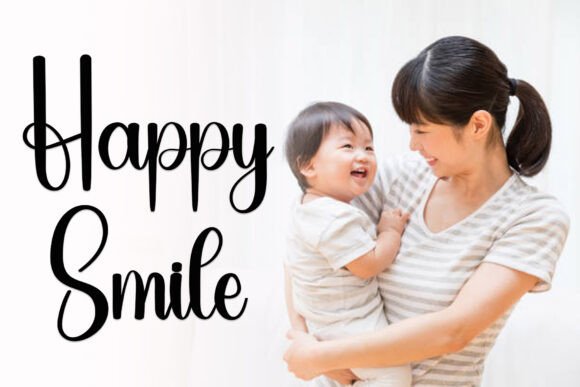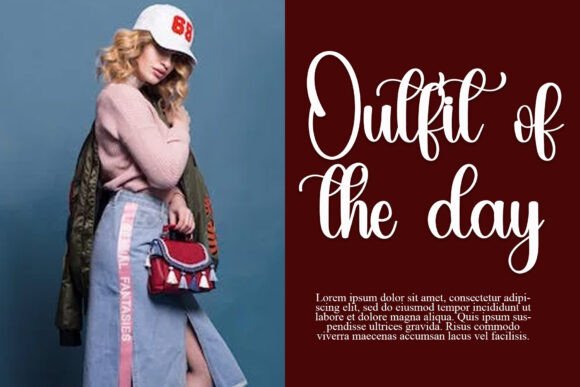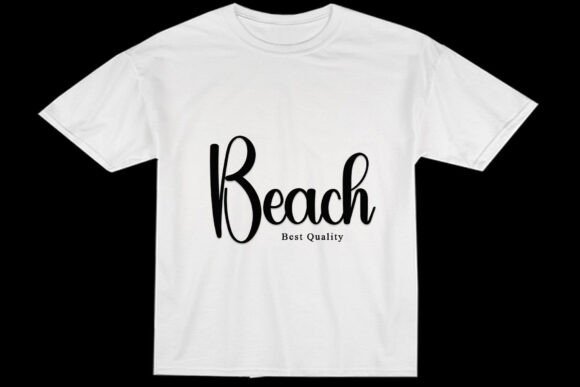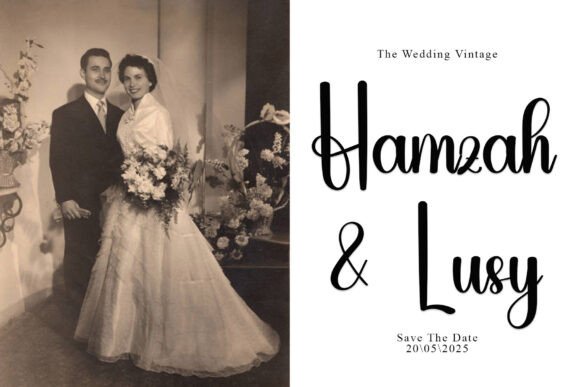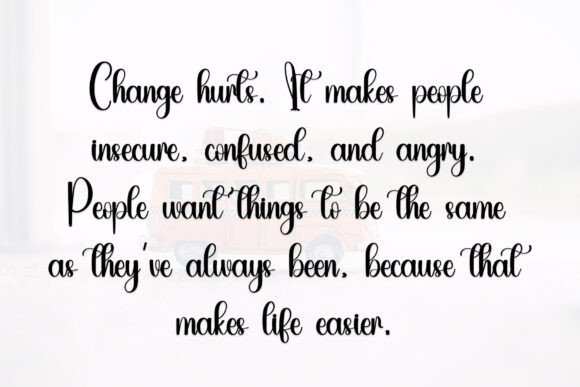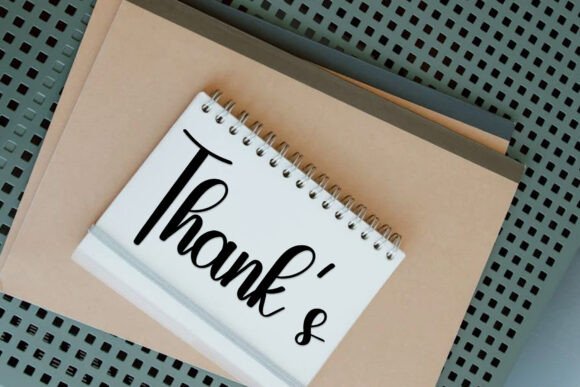
Baby Chubby Font: The Perfect Addition to Your Design Arsenal
Are you a designer or crafter looking for a unique and elegant font to elevate your projects? Look no further than the Baby Chubby font! This stunning handwritten font is characterized by its flowing lines and timeless style, making it perfect for a wide range of applications. In this article, we’ll take a closer look at the Baby Chubby font, its features, and how you can use it to create spectacular designs.
What is Baby Chubby Font?
Baby Chubby is a beautiful, flowing handwritten font that exudes elegance and sophistication. Its incredibly distinct and timeless style makes it perfect for designers and crafters who want to add a touch of class to their projects. Whether you’re working on a logo, branding materials, or personal crafts, Baby Chubby is sure to impress.
Key Features of Baby Chubby Font
- Handwritten style: Baby Chubby is a handwritten font, which gives it a personal and unique touch.
- Elegant lines: The font features flowing lines that add to its elegance and sophistication.
- Timeless style: Baby Chubby’s style is timeless, making it perfect for projects that require a classic look.
- Distinctive: The font’s distinctive style sets it apart from other fonts, making it perfect for designers who want to create unique designs.
Uses of Baby Chubby Font
Baby Chubby is a versatile font that can be used in a wide range of projects, including:
- Logo design: The font’s elegant lines and timeless style make it perfect for logo design.
- Branding materials: Use Baby Chubby to create business cards, brochures, and other branding materials that exude elegance and sophistication.
- Personal crafts: The font is perfect for crafters who want to add a touch of elegance to their projects, such as handmade cards, scrapbooking, and DIY projects.
- Digital design: Baby Chubby can be used in digital designs, such as website headers, social media graphics, and more.
Tips for Using Baby Chubby Font
Here are some tips for using Baby Chubby font in your designs:
- Pair it with a simple font: Pair Baby Chubby with a simple font to create a beautiful contrast.
- Use it sparingly: Use Baby Chubby sparingly to avoid overwhelming your design.
- Pay attention to spacing: Pay attention to spacing to ensure that your design looks elegant and sophisticated.
In conclusion, Baby Chubby font is a beautiful and elegant font that is perfect for designers and crafters who want to add a touch of class to their projects. Its flowing lines, timeless style, and distinctive features make it a versatile font that can be used in a wide range of applications. With its ease of use and flexibility, Baby Chubby is sure to become a favorite in your design arsenal.